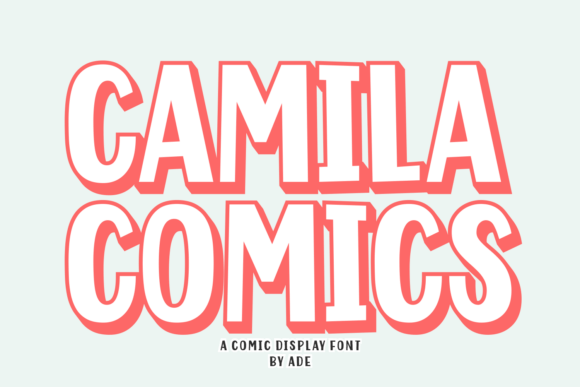
Camila Comics Font: The Ultimate Display Typeface for Youthful Energy
In the world of typography, fonts play a crucial role in conveying the tone and personality of a brand or project. When it comes to creating eye-catching headlines and attention-grabbing titles, a font that exudes youthful energy and enthusiasm is essential. This is where Camila Comics Font comes into play. In this article, we’ll dive into the features and benefits of Camila Comics Super Eager Font, the newest addition to the world of display typefaces.
What is Camila Comics Font?
Camila Comics Font is a playful and whimsical typeface designed to effortlessly radiate youthful energy and enthusiasm. With its dynamic style, this font is perfect for creating memorable and impactful headlines that grab attention. The font’s approachable design makes it ideal for a wide range of applications, from poster design and branding projects to educational materials and children’s book cover design.
Key Features of Camila Comics Super Eager Font
- Dynamic Style: Camila Comics Font boasts a dynamic style that is sure to make a memorable splash in any project.
- Multilingual Support: This font features multilingual support, making it perfect for international assignments and projects that require a global reach.
- Comprehensive Character Set: With a comprehensive character set, Camila Comics Font offers high readability, making it ideal for educational materials and children’s book cover design.
- Versatility: This font is designed to be versatile, making it suitable for a wide range of applications, from poster design and branding projects to product branding and packaging.
Benefits of Using Camila Comics Font
Camila Comics Font offers a range of benefits that make it an attractive choice for designers and brands. Some of the key benefits include:
- Attention-Grabbing: This font is designed to grab attention, making it perfect for headlines and titles that need to stand out.
- Youthful Energy: Camila Comics Font exudes youthful energy and enthusiasm, making it ideal for brands and projects that want to appeal to a younger audience.
- Approachable Design: The font’s approachable design makes it perfect for brands and projects that want to convey a positive and friendly message.
- High Readability: With a comprehensive character set and high readability, Camila Comics Font is ideal for educational materials and children’s book cover design.
Use Cases for Camila Comics Font
Camila Comics Font is a versatile typeface that can be used in a wide range of applications. Some of the most popular use cases include:
- Poster Design: This font is perfect for poster design, where eye-catching headlines and attention-grabbing titles are essential.
- Branding Projects: Camila Comics Font is ideal for branding projects, where a font that exudes youthful energy and enthusiasm is required.
- Children’s Book Cover Design: With its high readability and comprehensive character set, this font is perfect for children’s book cover design.
- Product Branding: Camila Comics Font is also suitable for product branding, where a font that grabs attention and conveys a positive message is required.
Why Choose Camila Comics Font?
With so many fonts available, why choose Camila Comics Font? Here are a few reasons why this font stands out:
- Unique Style: Camila Comics Font boasts a unique style that is sure to make a memorable splash in any project.
- Multilingual Support: This font features multilingual support, making it perfect for international assignments and projects that require a global reach.
- High Readability: With a comprehensive character set and high readability, Camila Comics Font is ideal for educational materials and children’s book cover design.
- Versatility: This font is designed to be versatile, making it suitable for a wide range of applications.
In conclusion, Camila Comics Font is a playful and whimsical typeface that effortlessly radiates youthful energy and enthusiasm. With its dynamic style, multilingual support, comprehensive character set, and versatility, this font is perfect for creating eye-catching headlines and attention-grabbing titles. Whether you’re working on a poster design, branding project, children’s book cover design, or product branding, Camila Comics Font is an excellent choice.